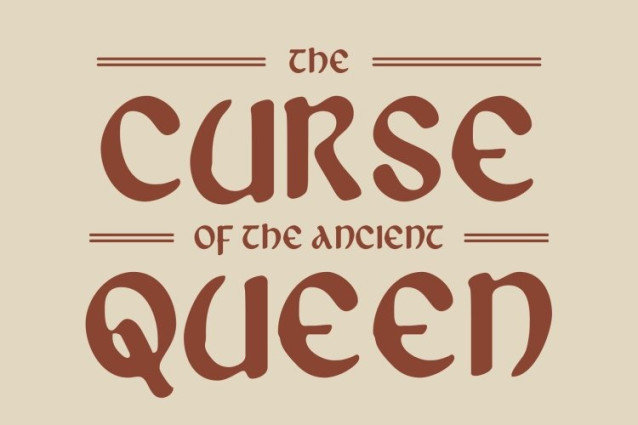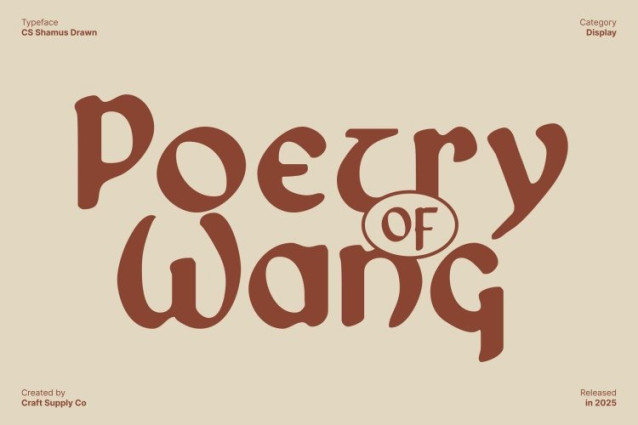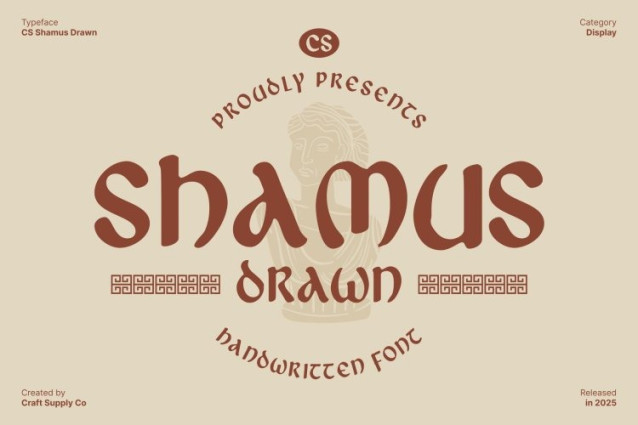
CS Shamus Drawn Font
CS Shamus Drawn Font This is a display font inspired by uncial letterforms, known for their rounded curves and historical significance. These distinctive shapes echo ancient manuscripts and early calligraphic traditions, bringing a sense of heritage, authority, and timeless beauty into contemporary design. The uncial influence creates a strong visual identity that feels classic, cultured, and rich with historical depth.
Drawn Effect for Handmade Artistic Depth
The drawn effect adds a layer of artistic expression that transforms the font from purely classical into something more personal and expressive. Subtle handmade textures and organic stroke variations soften the structured serif forms, giving the font warmth and character.
Elegant Presence for Luxury and Editorial Design
Designed to stand out in display settings, this font excels in luxury branding, book titles, posters, and editorial layouts. Its refined curves and artistic texture communicate sophistication and prestige, making it ideal for high-end projects that demand visual elegance and strong storytelling through typography.
A Balance of Timeless Tradition and Modern Artistry
This font perfectly bridges the past and present, combining historical uncial elegance with modern drawn artistry. Whether used for premium packaging, cultural branding, or classic-inspired visuals, this font delivers a distinctive, memorable look that feels timeless, expressive, and visually captivating.